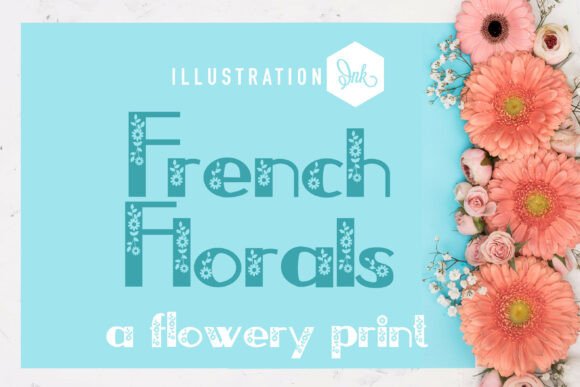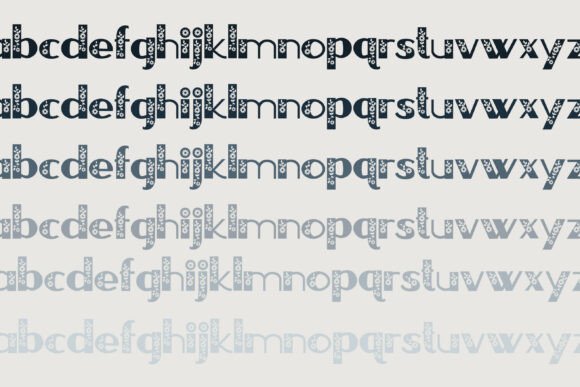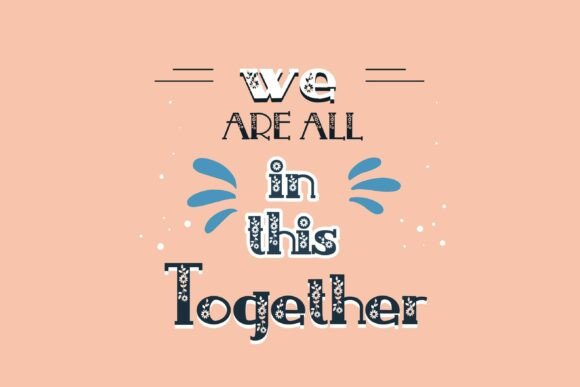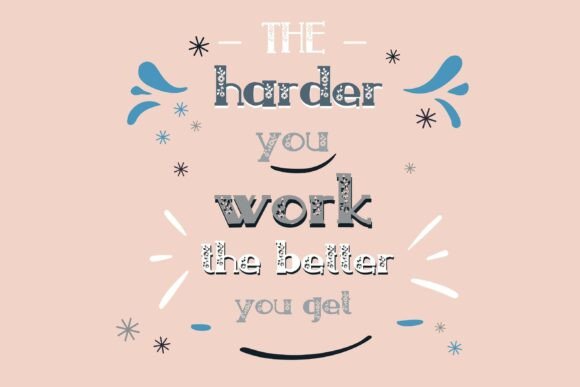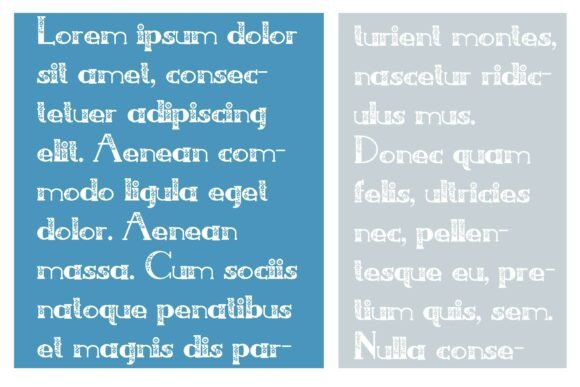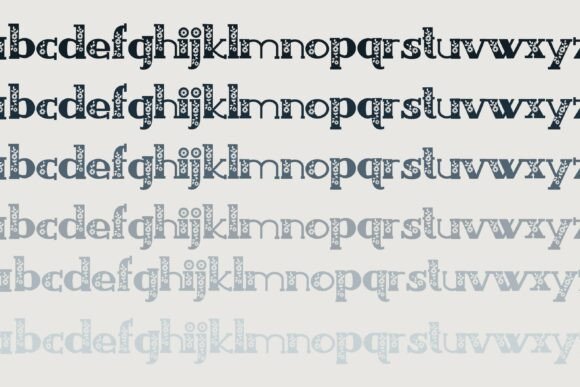
Introduction to French Florals Font
Infuse your projects with high-end European charm using French Florals.
This โflowery serifโ is defined by its sturdy, classic slab-serif skeleton, which serves as a canvas for intricate, internal floral illustrations It captures a โvintage-luxeโ soul, providing a professional foundation for designs that need to feel established, romantic, and meticulously detailed.
Key Features of French Florals Font